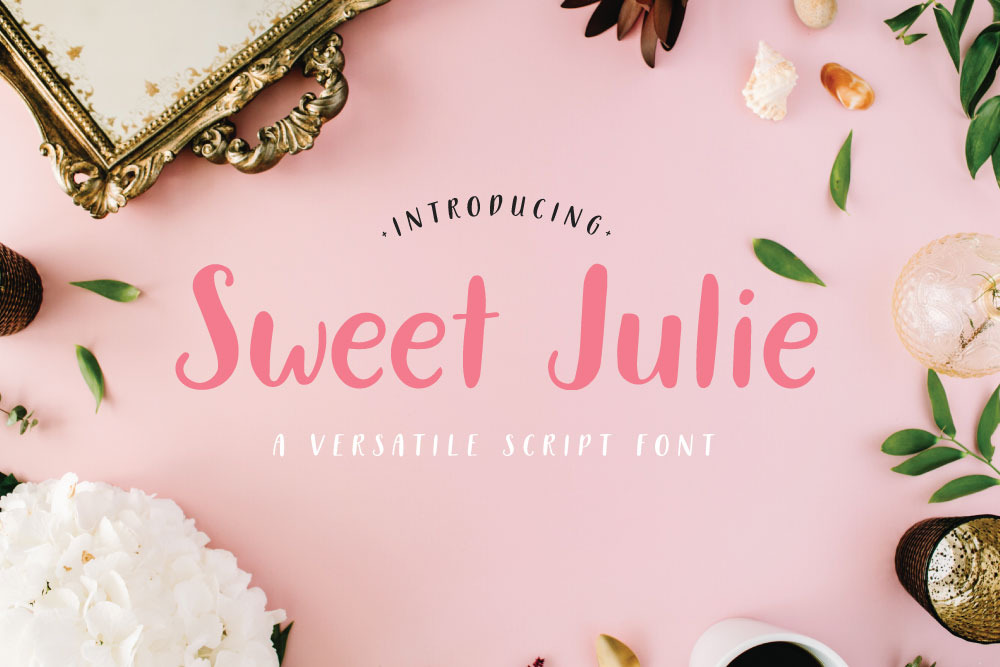
Sweet Julie Font
Sweet Julie is a hand-drawn typeface perfect for printed and digital applications. A versatile script font perfectly suitable for event invitations, thank you notes, newborn announcements, wedding invitations, logos and branding projects, product packaging, restaurant menus, digital advertising and social media branding applications, among many more. This font will bring a charming and lovable look to your design creation.
- Full upper and lowercase
- Character set A-Z
- Accents (Multi-lingual support)
Supported Languages: Afrikaans, Albanian, Catalan, Croatian, Czech, Danish, Dutch, Estonian, Finnish French, German Icelandic, Italian, Maltese, Norwegian, Portuguese, Romanian, Slovenian, Spanish, Swedish, Latvian, Lithuanian, Turkish among others.